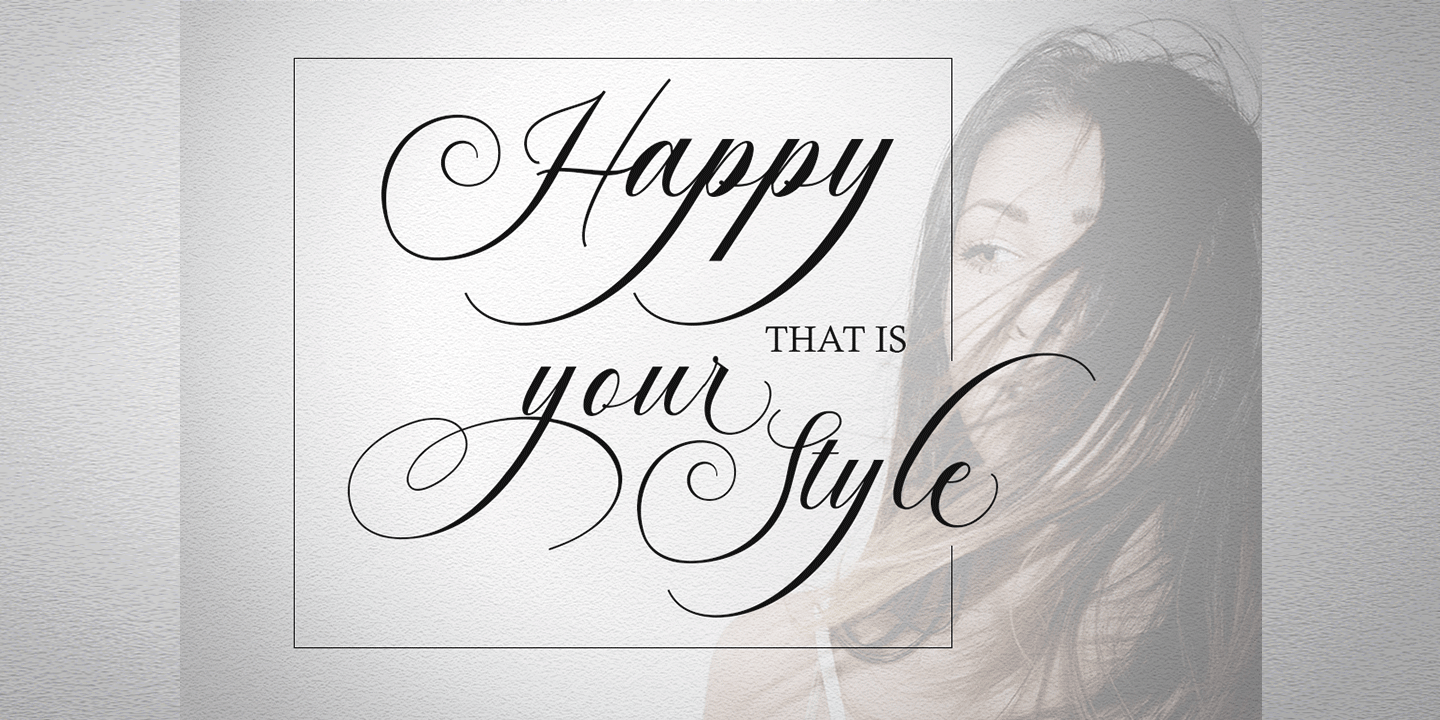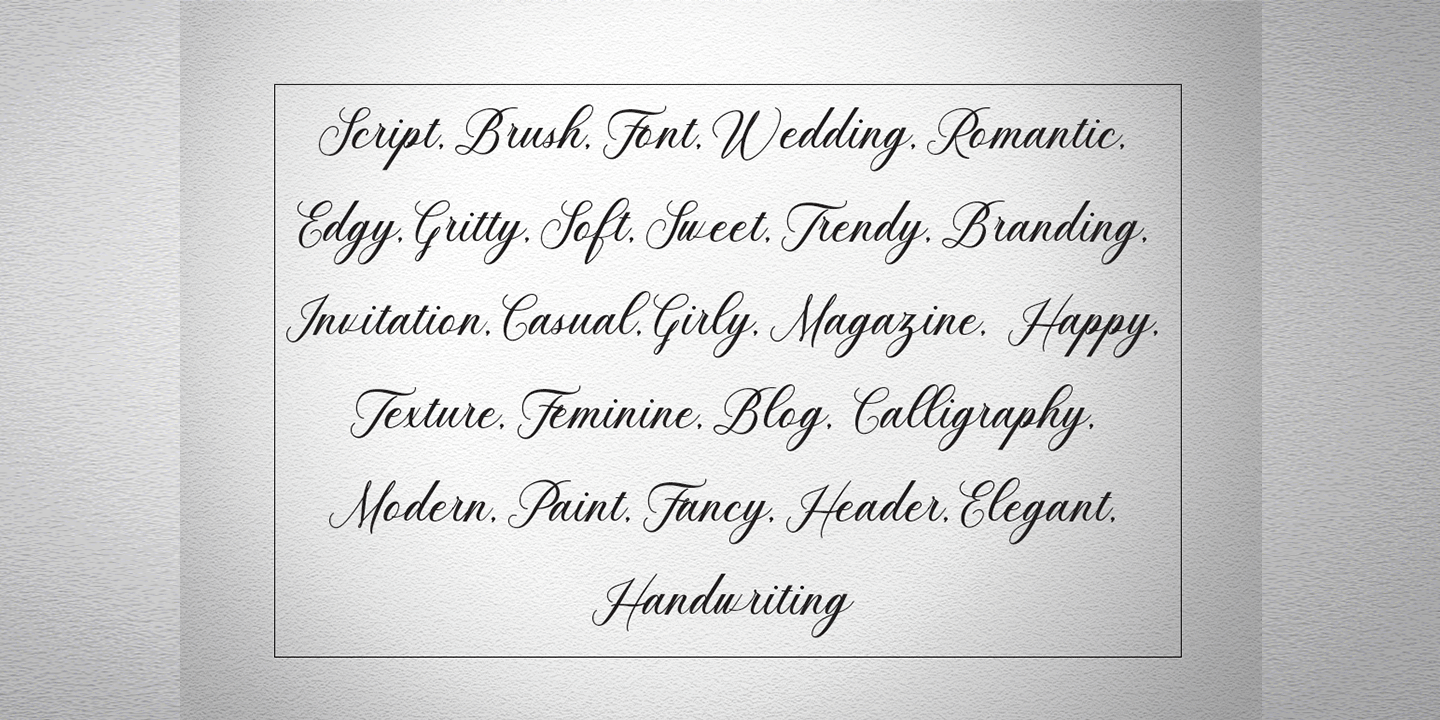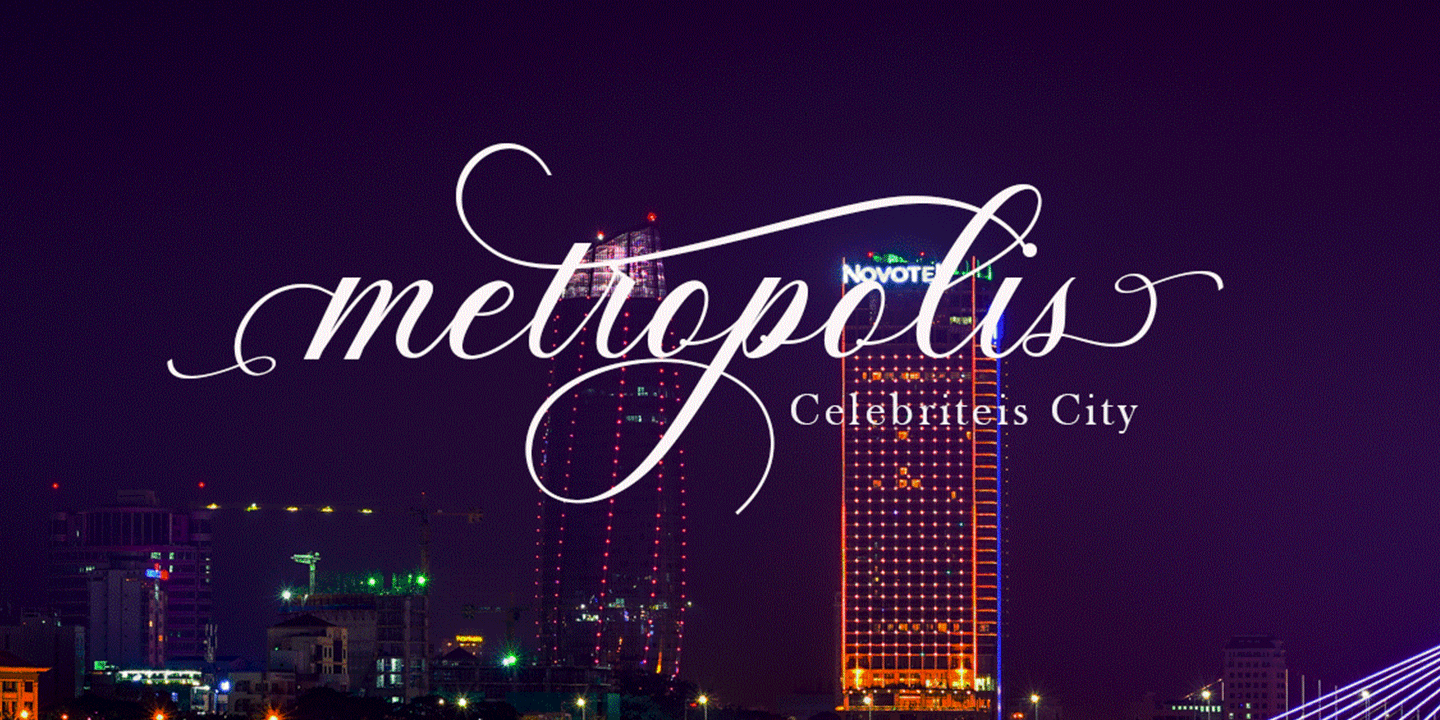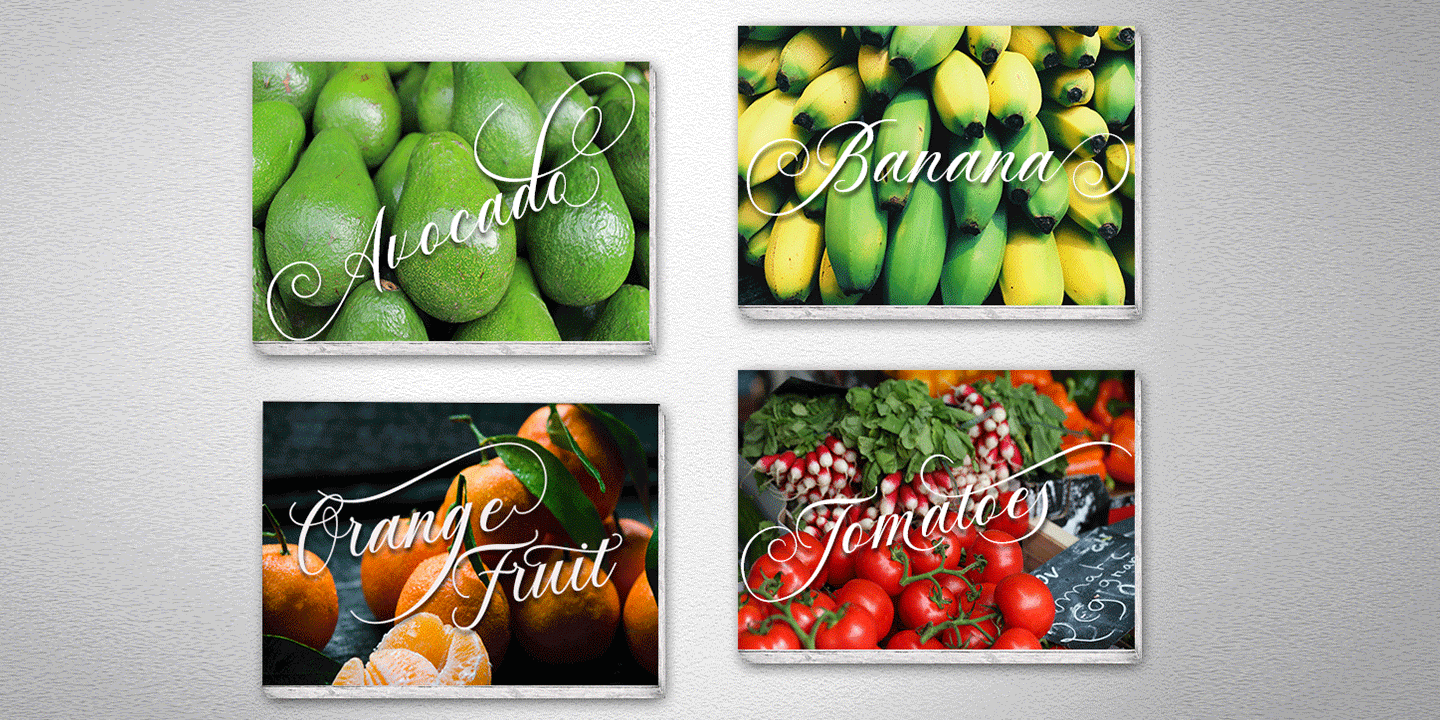
Anitha
Anitha is a modern calligraphy font that blends the elegance of classic copperplate lettering with a fresh, contemporary style. Its flowing forms and dancing baseline give the typeface a graceful, sophisticated personality that works beautifully across both traditional and modern designs.
With 496 glyphs, Anitha includes a wide variety of alternate characters, ligatures, and decorative options, along with multilingual support.
Font Features
-
Standard Ligatures
-
Discretionary Ligatures
-
Swash Alternates
-
Stylistic Alternates
-
Stylistic Sets
-
PUA Unicode (Private Use Area) characters
Language Support
Anitha supports a wide range of Latin-based European languages, including:
Breton, Catalan, Czech, Danish, English, Estonian, Finnish, French, German, Hungarian, Icelandic, Italian, Latvian, Lithuanian, Norwegian, Polish, Portuguese, Romanian, Scottish Gaelic, Slovak, Slovenian, Spanish, Swedish, Turkish, and Welsh.
Anitha is a versatile choice for headings, logos, wedding invitations, apparel, letterheads, signage, labels, editorial designs, posters, badges, packaging, branding, and many other creative projects.
The Anitha font family includes 496 glyphs.